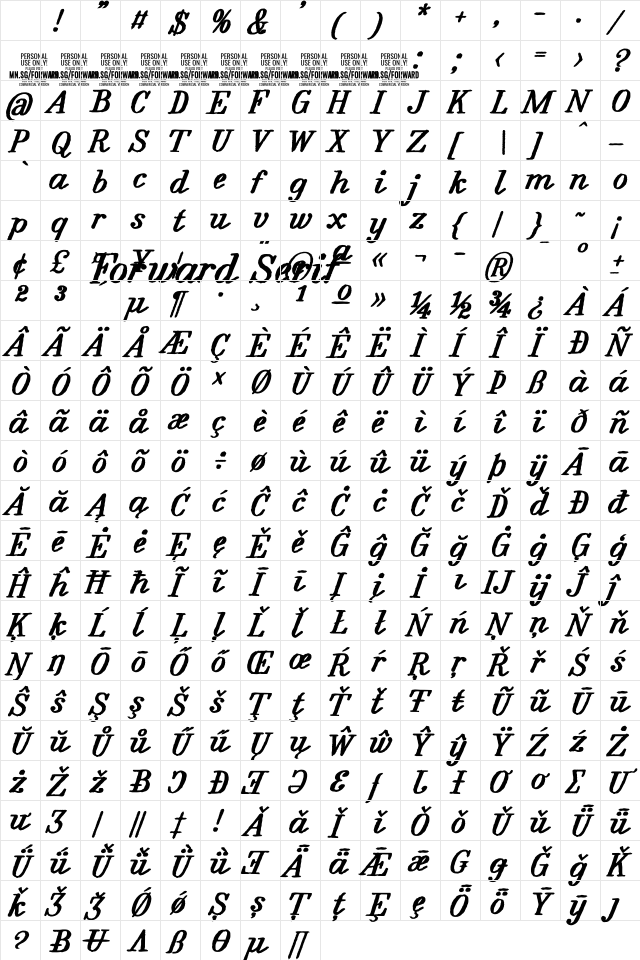
Complete Forward Serif Bold PERSONAL Bold glyph index. Displaying only characters natively supported by Forward Serif Bold PERSONAL Bold font.
Forward Serif Bold PERSONAL carries the refined structure of traditional serif typography, with bracketed terminals and considered proportions that communicate credibility and craft. Its bold stroke weight gives it real presence on the page.
Pro Tip: Use Forward Serif Bold PERSONAL for editorial body copy and considered headline work. Pair with a neutral sans for UI elements or captions to create a classic hierarchy.